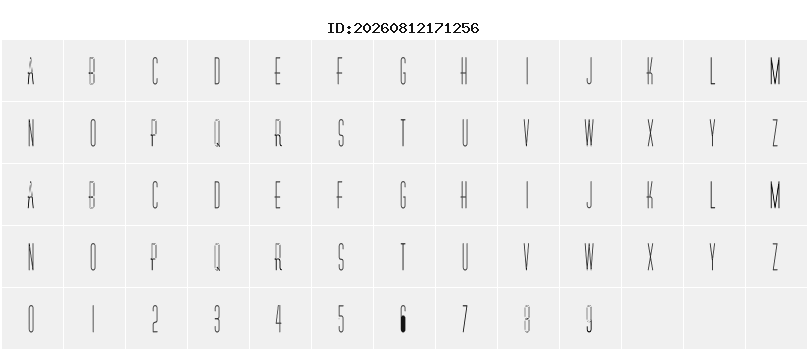
RhyOlverHC Preview
• Font Name: RhyOlverHC
• Full Font Name: RhyOlverHC
• PostScript Name: RhyOlverHC
About RhyOlverHC.ttf
RhyOlverHC.ttf is a modern, elegant sans-serif font designed for ultimate readability and visual harmony. Perfect for branding, headlines, web design, and print materials.